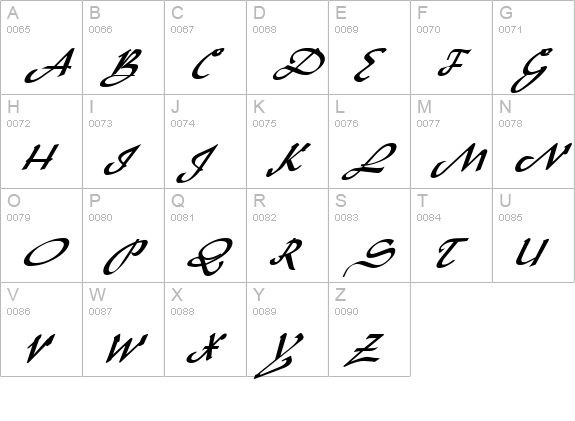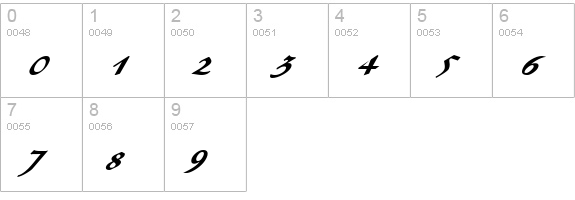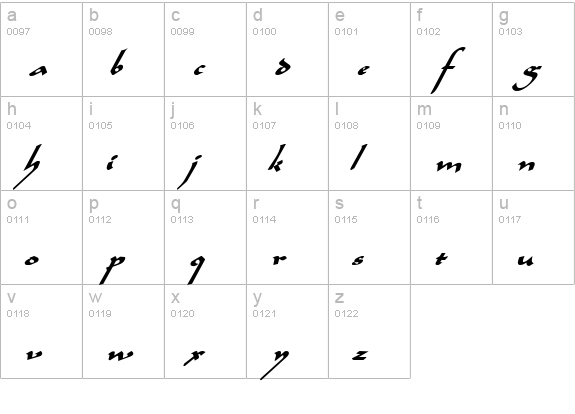
Sinbad BoldItalic Font Details
Sinbad BoldItalic is a striking and dynamic font that exudes unparalleled confidence and boldness. Its unique combination of boldness and italics creates a captivating visual impact that instantly grabs attention and leaves a lasting impression. This font is perfect for those who want to make a strong statement with their designs. Whether you're creating eye-catching headlines, attention-grabbing logos, or powerful poster designs, Sinbad BoldItalic will ensure that your message is delivered with maximum impact. With its sleek and modern design, Sinbad BoldItalic is versatile and can be used across a wide range of design projects. Its bold strokes and slanted italics add a touch of elegance and sophistication, making it ideal for luxury branding, fashion magazines, and high-end advertisements. One of the most remarkable aspects of Sinbad BoldItalic is that it is available for free. Yes, you read that right. This stunning font can be freely downloaded from FontsMarket.com, making it accessible to designers of all levels and budgets. So, why wait? Take your designs to the next level with Sinbad BoldItalic. Download it now and unleash your creativity like never before. Whether you're a professional designer or a passionate hobbyist, this font is sure to become an indispensable tool in your creative arsenal. Get ready to make a bold statement with Sinbad BoldItalic.